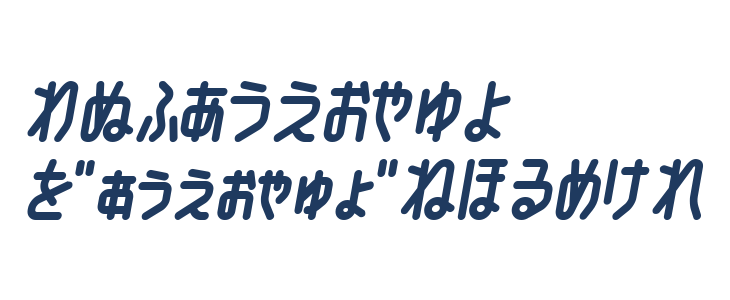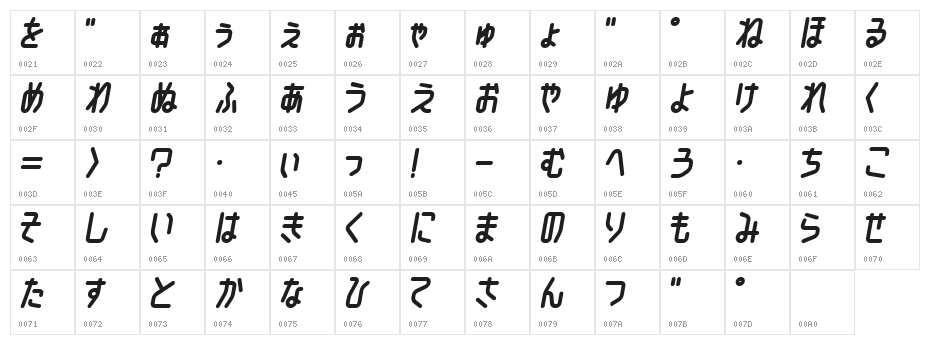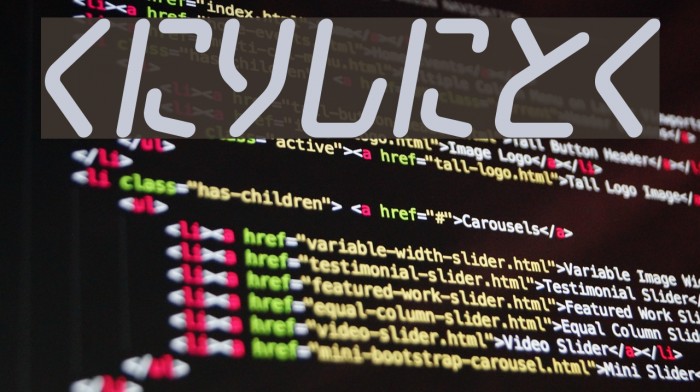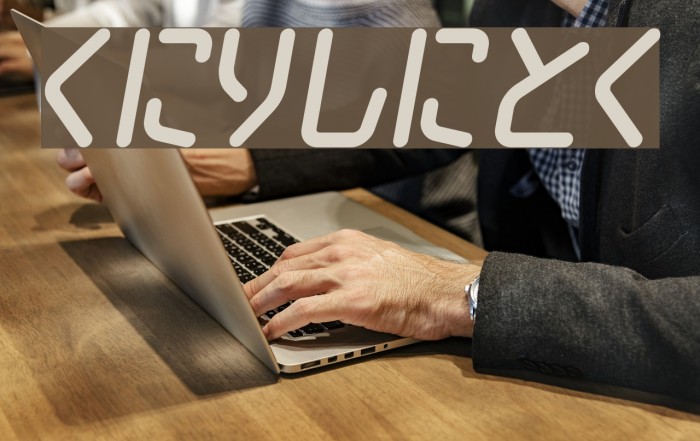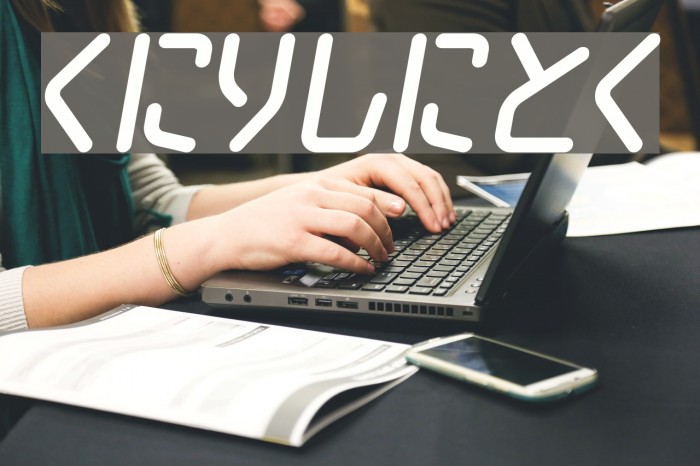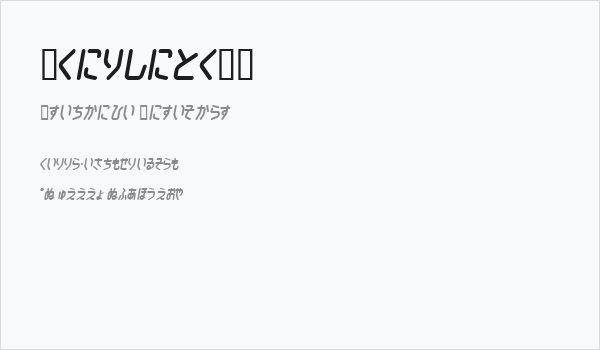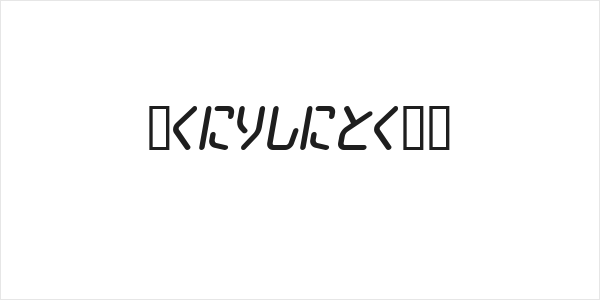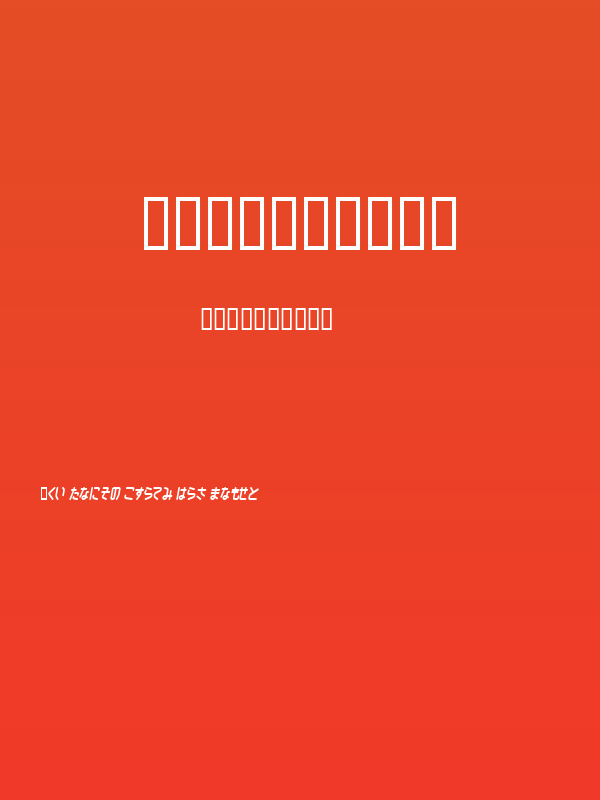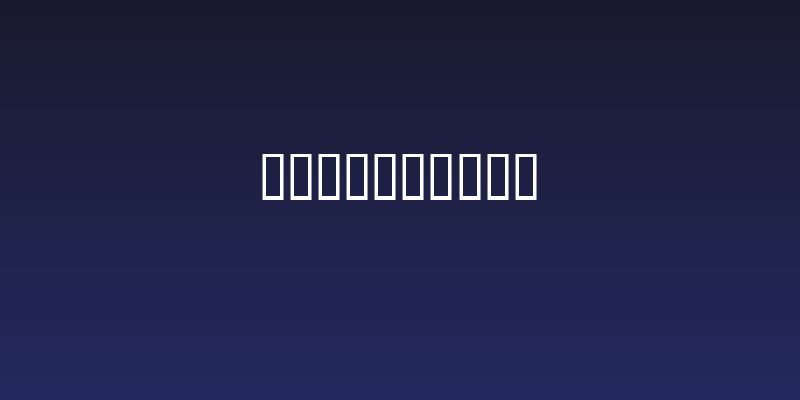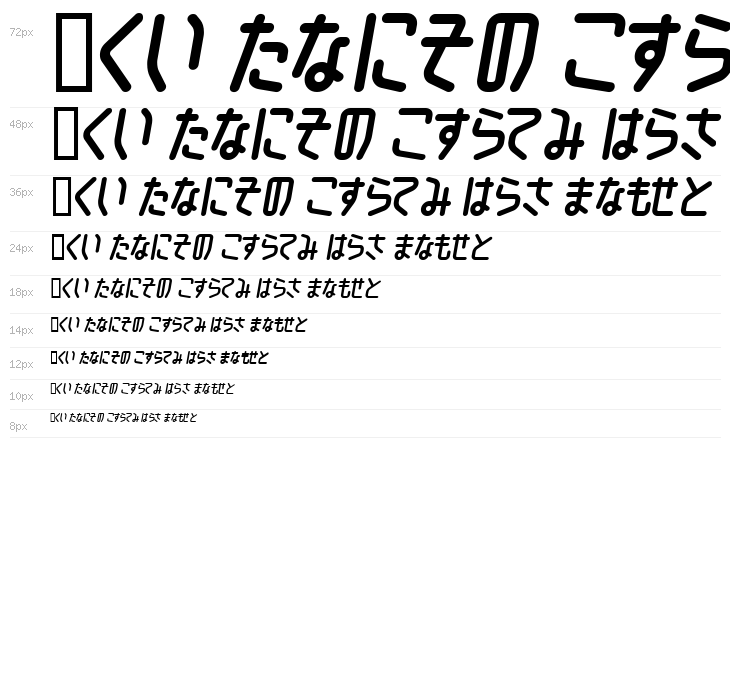
ChildishHR Font
ChildishHR Description
Playful, handwritten Japanese font with rounded strokes and a casual, informal appearance. The characters have a slightly slanted, dynamic feel, mimicking a child's handwriting with consistent stroke thickness and soft curves.
| Overall Style | Playful, Casual, Childlike |
| Use Case | Children's content, informal headings, playful designs |
| Proposed Projects | Children's books, educational materials, playful branding, greeting cards, informal posters. |